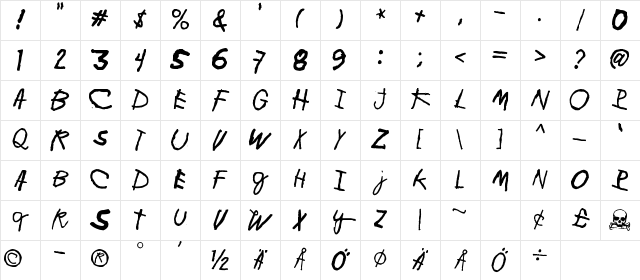
Minen oo kenguru Regular Free Font
Minen oo kenguru Regular
Designer: dorkahanhero
Year: 2011
Complete Minen oo kenguru Regular glyph index. Displaying only characters natively supported by Minen oo kenguru Regular font.
Design Context for Minen oo kenguru
Minen oo kenguru is a composed and adaptable typeface that performs quietly and consistently across a wide range of design contexts.